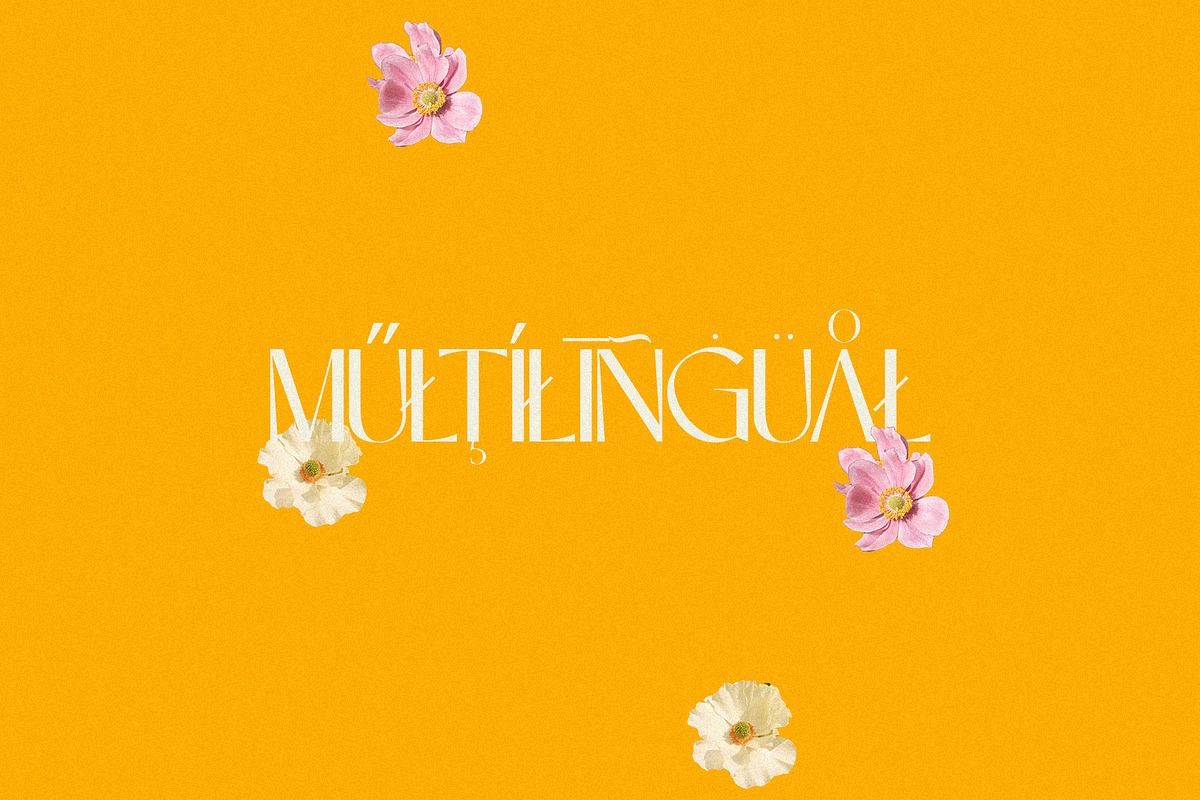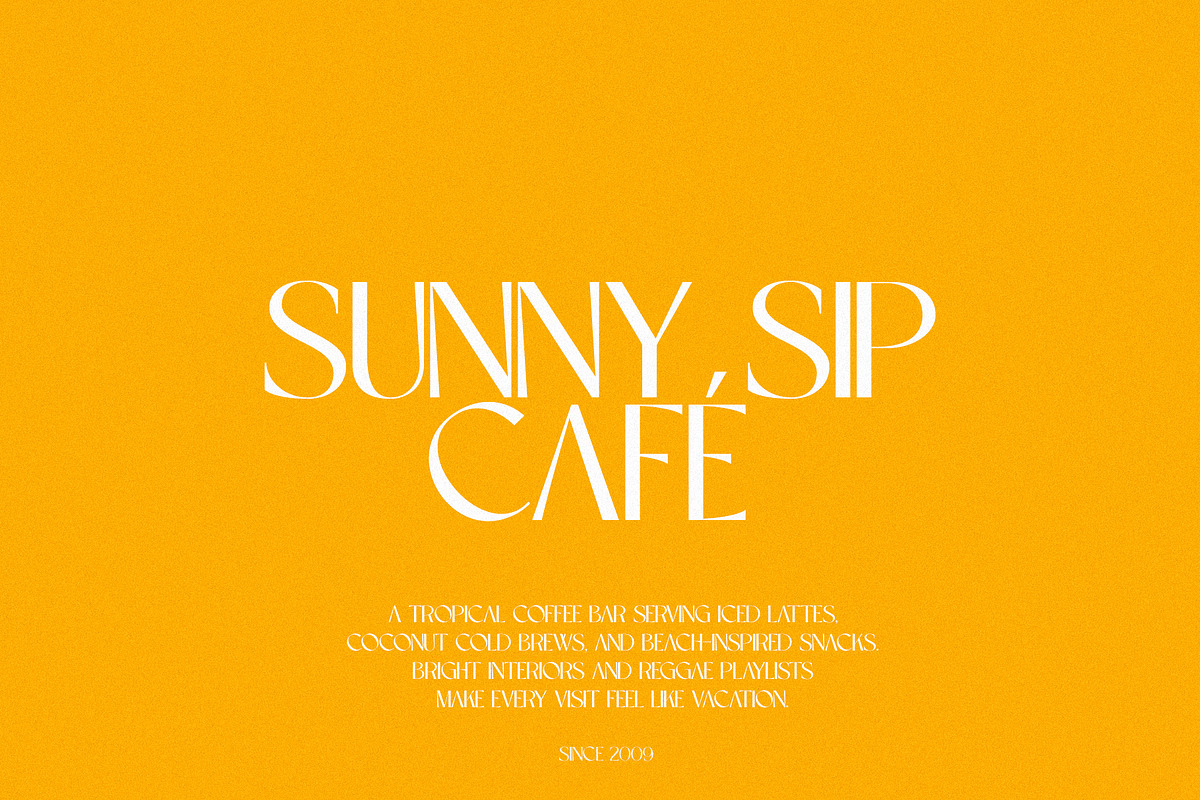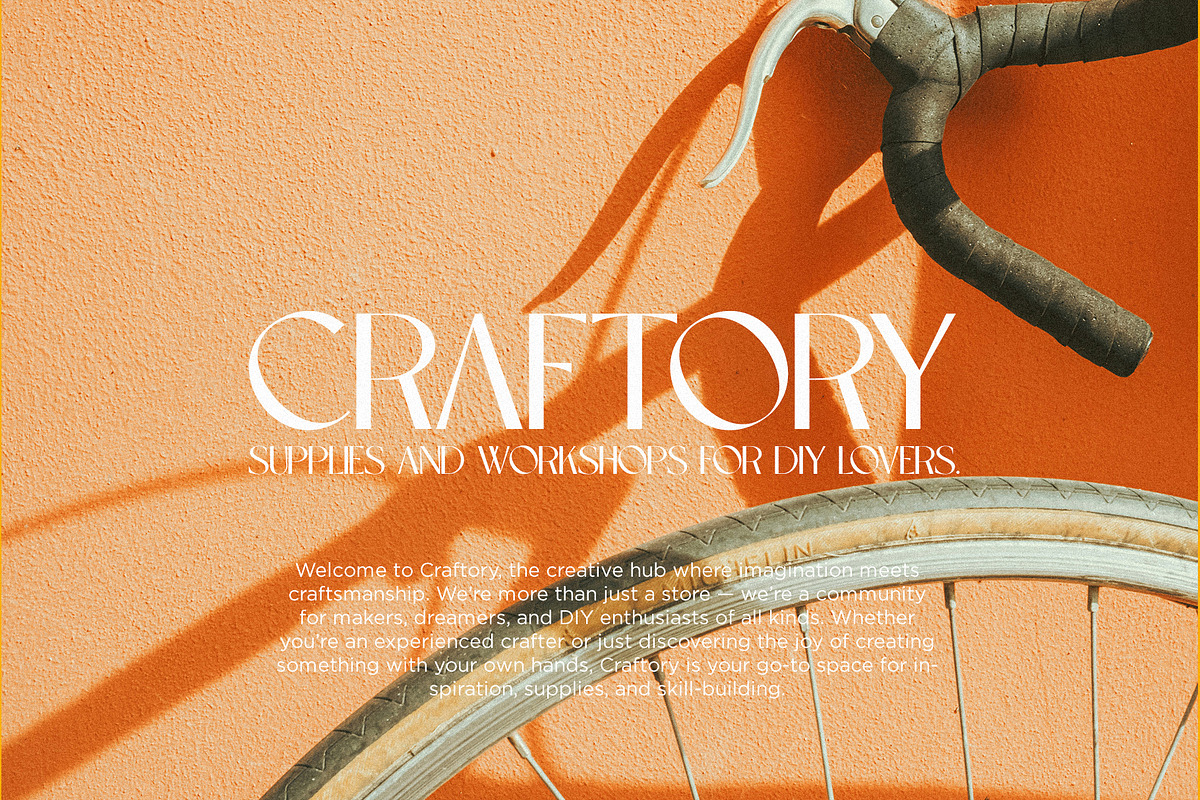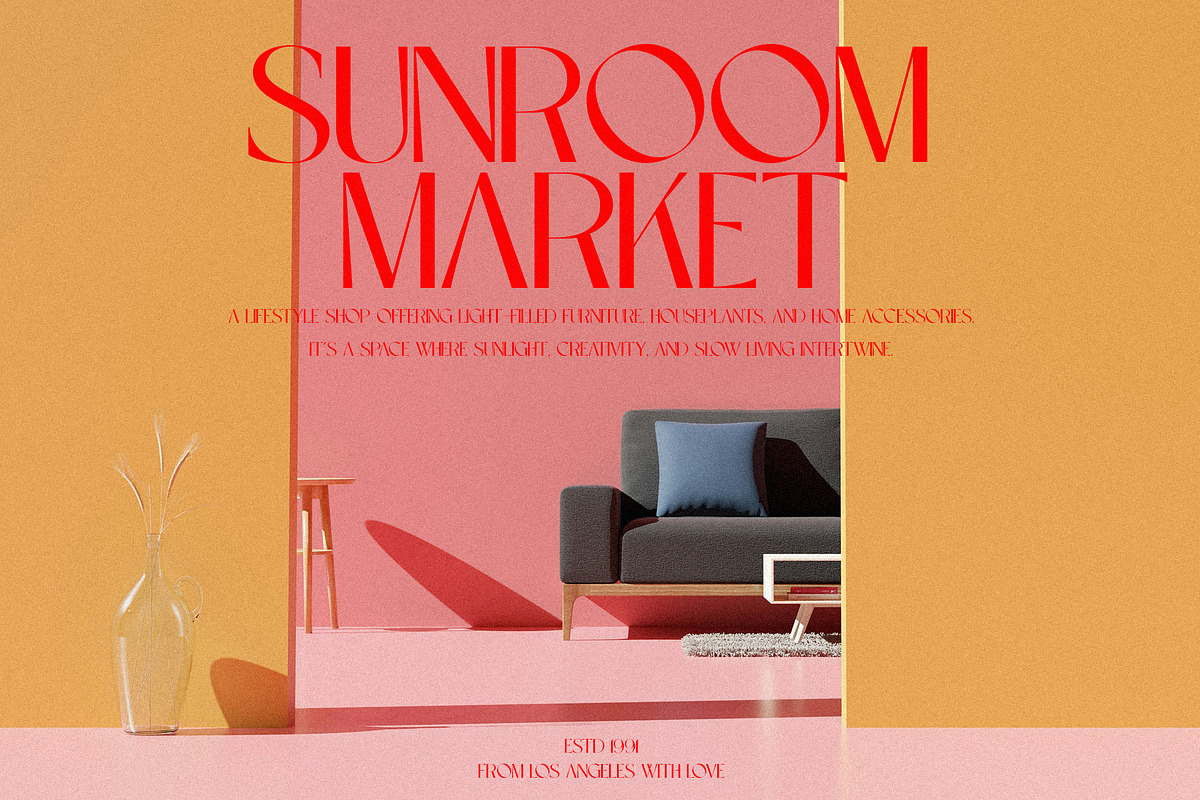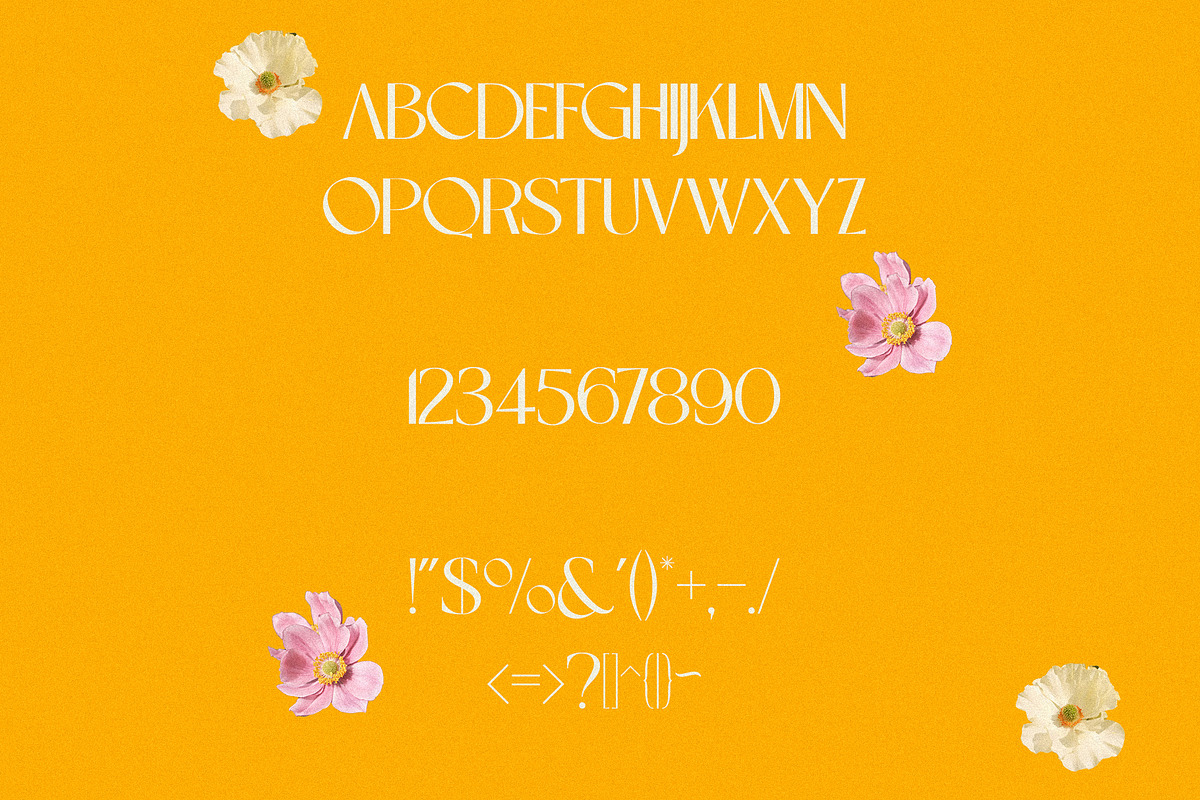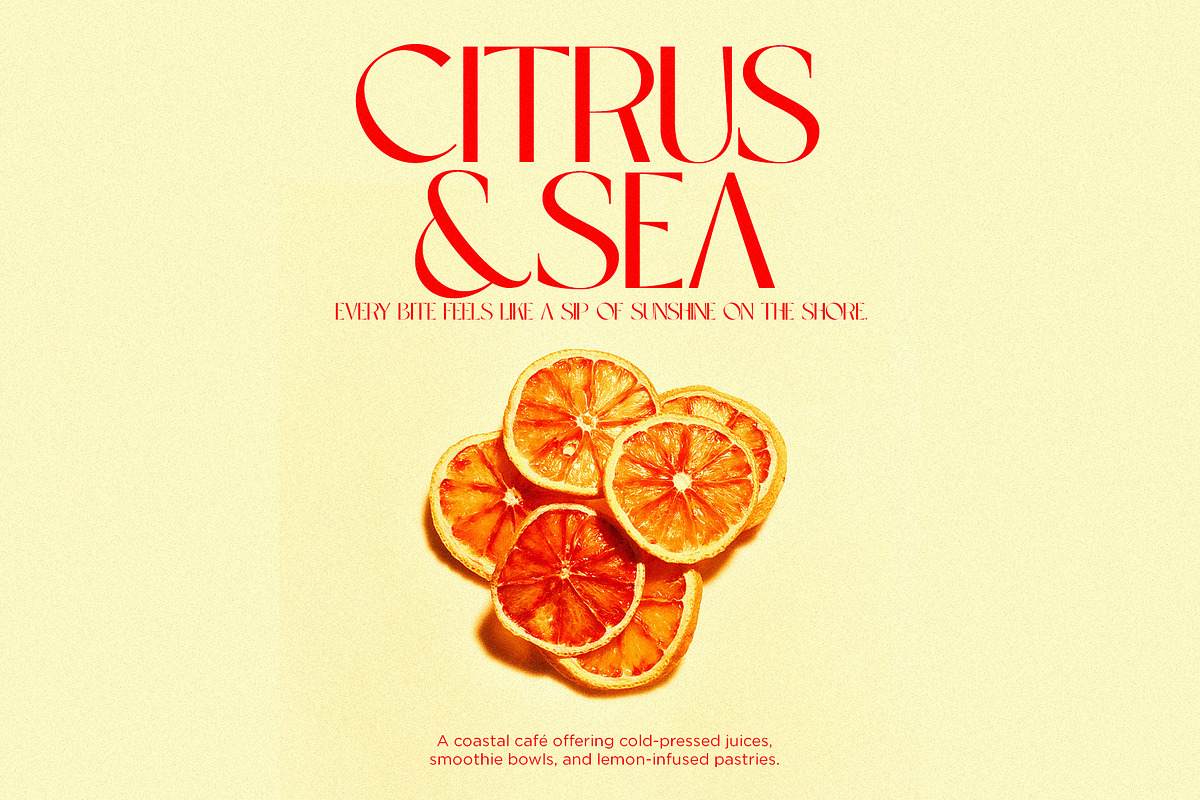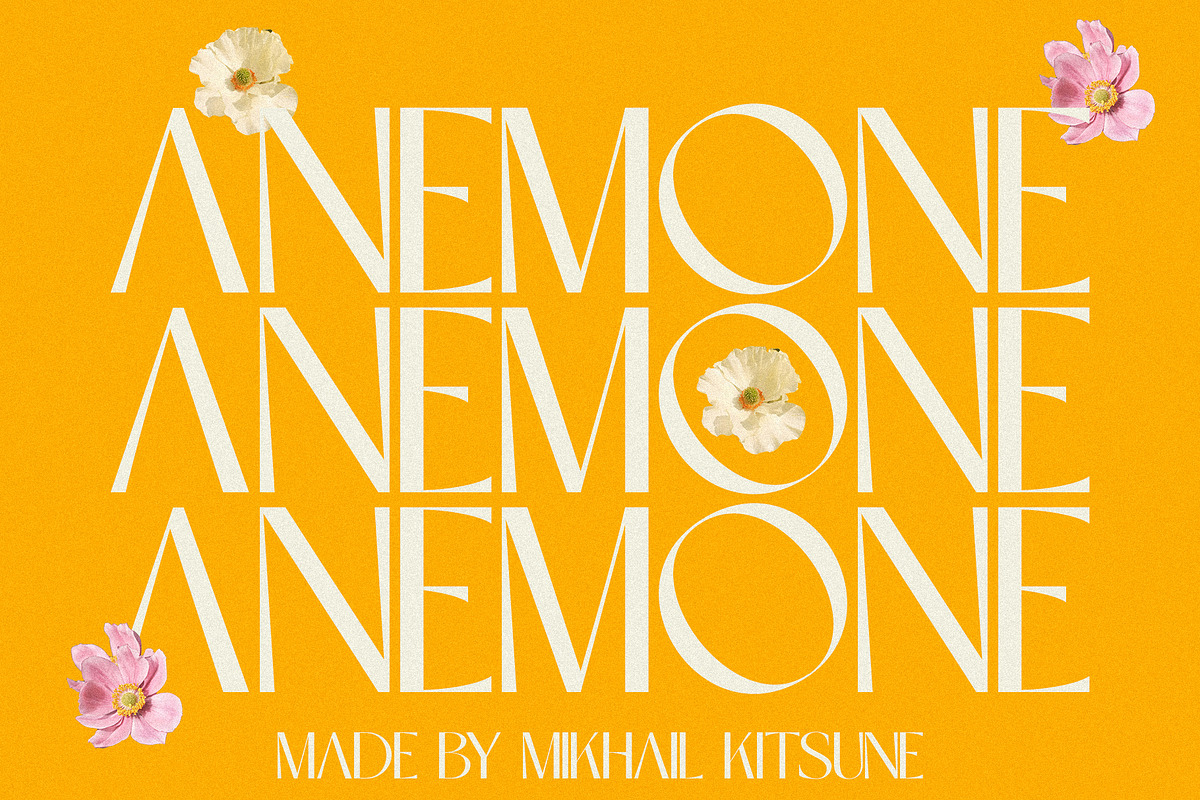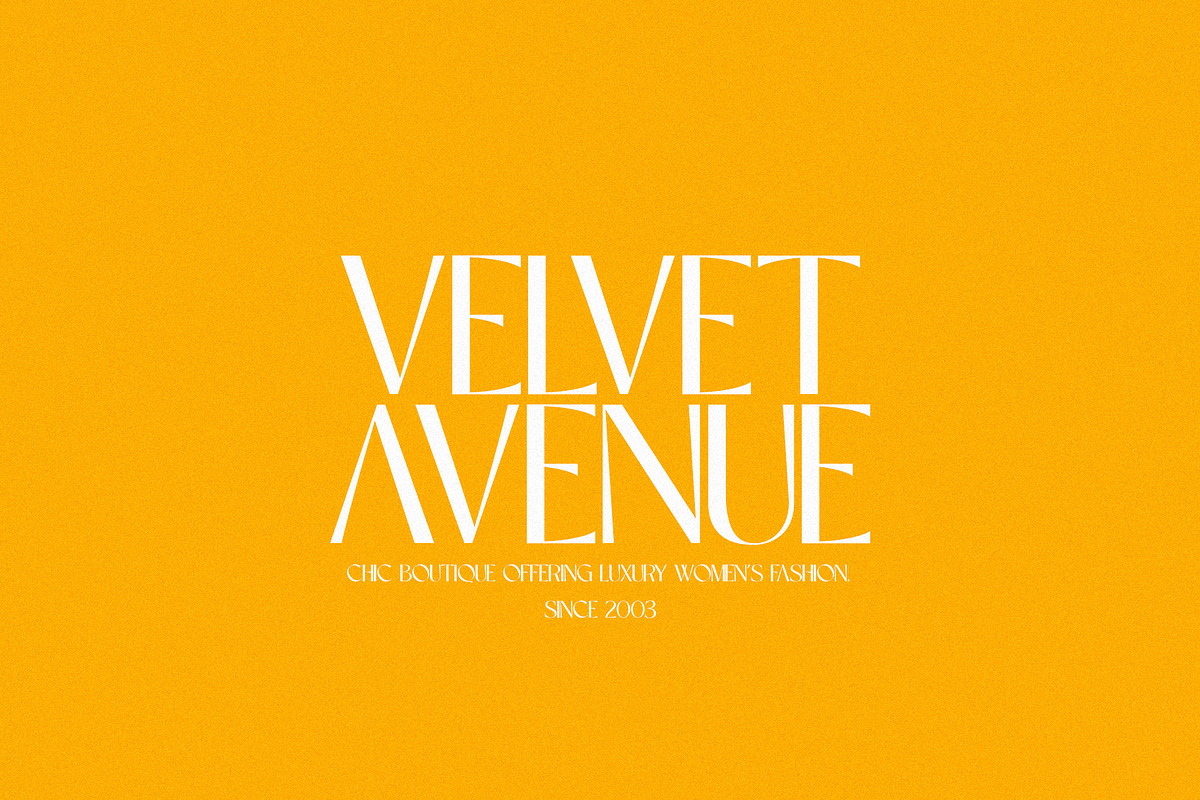
Anemone - Elegant & Modern Sans
Anemone is the embodiment of sleek sophistication and contemporary style. This modern sans-serif typeface blends clean, minimalist lines with subtle elegance, making it perfect for brands that want to exude both luxury and simplicity. With its refined proportions and effortlessly balanced structure, Anemone adapts seamlessly to a wide range of design projects, from high-end fashion and tech to minimalist branding and editorial design. It’s a typeface that speaks with confidence yet maintains an understated charm, making it ideal for those who appreciate the beauty of modern simplicity. Whether displayed in large headlines or in fine print, Anemone brings a sense of calm sophistication to any design.